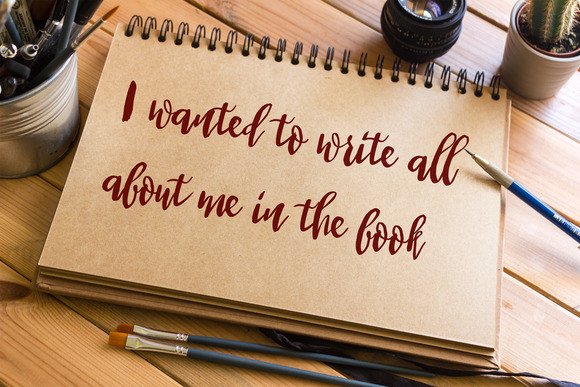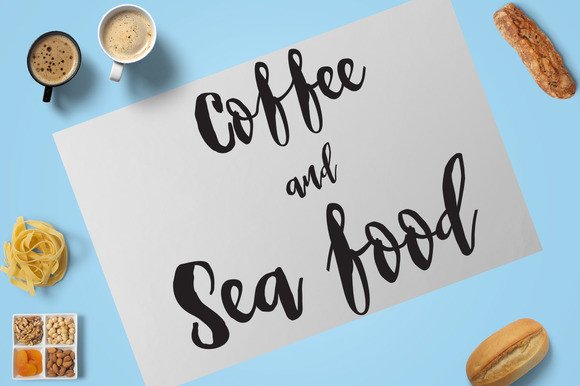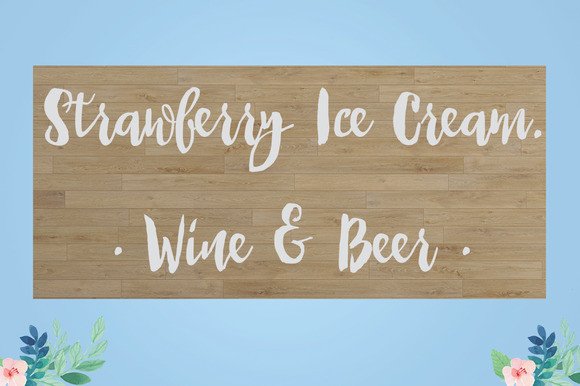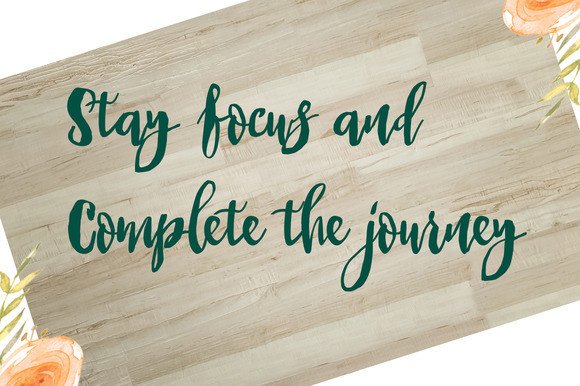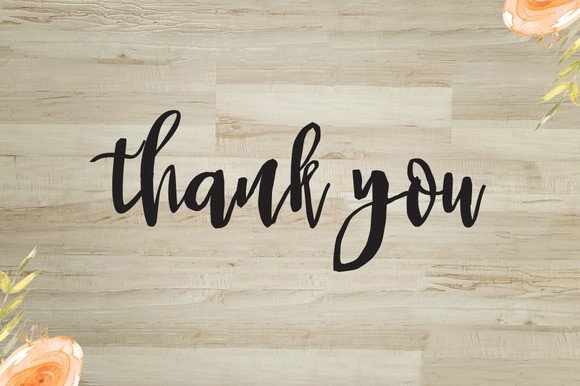
Queen Font
About Queen Font
Queen is a playful font with endless possibilities to create an awesome design. Can be used for various purposes such as posters, t-shirts, letterheads, logos, labels, wedding invitations, cards, and anything else you can imagine with this font.